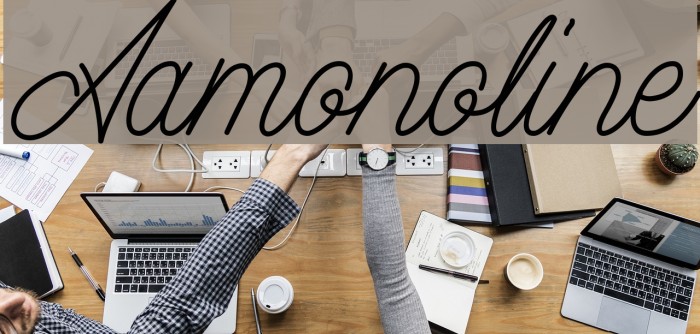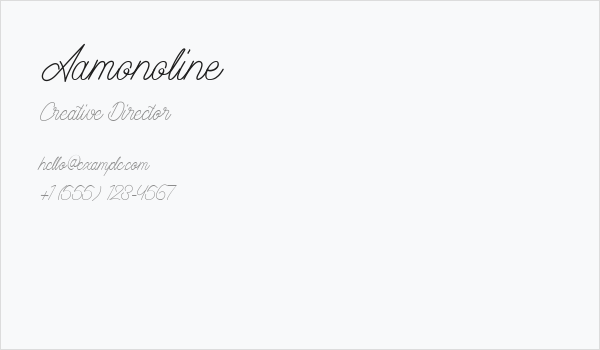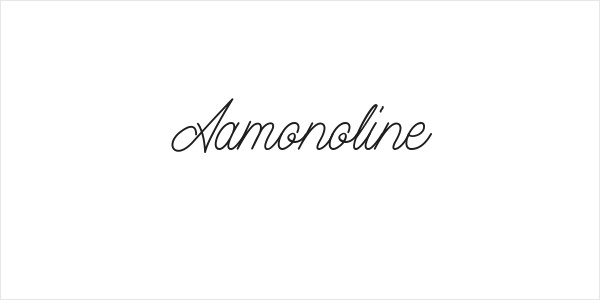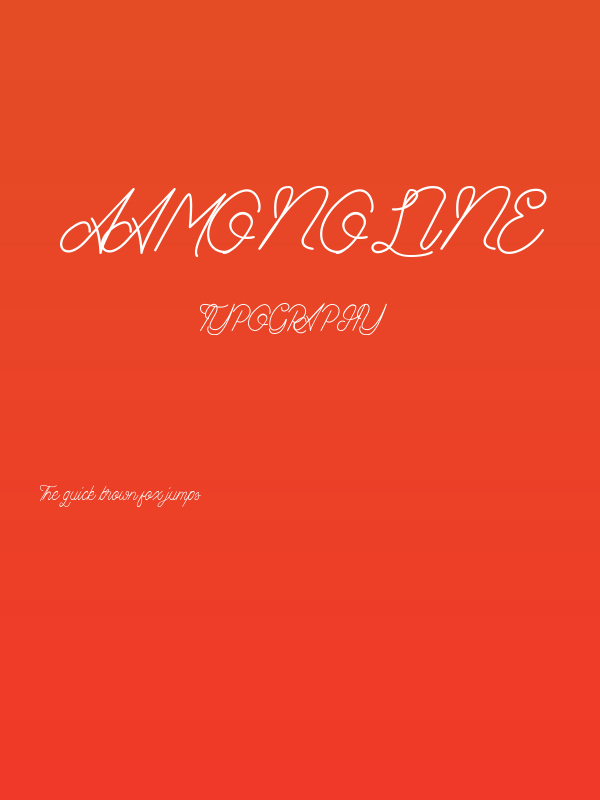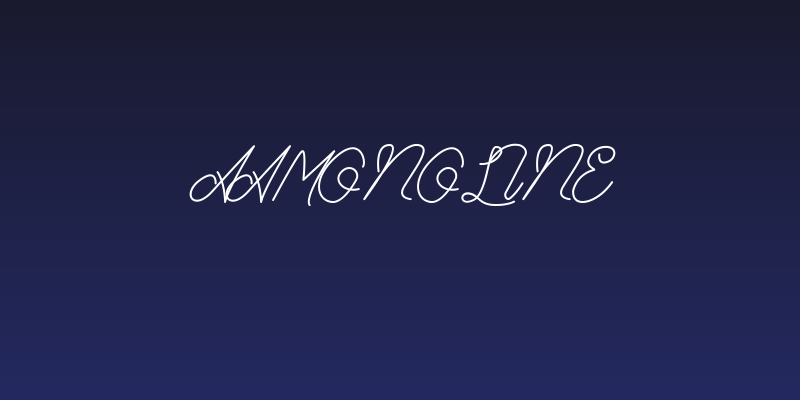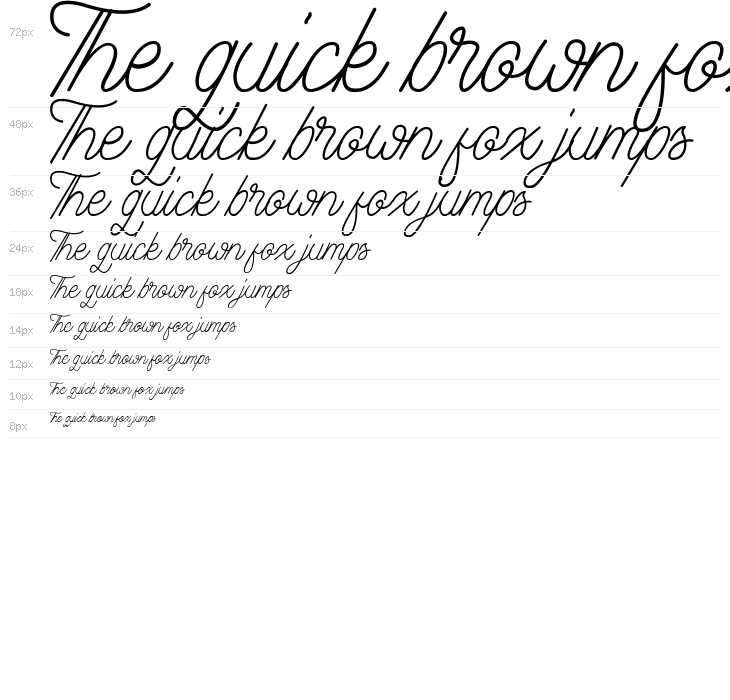
Aamonoline Font
Aamonoline Description
This elegant script font features a flowing, cursive style with smooth, continuous lines that create a sense of fluidity and grace. The uppercase letters are slightly more ornate, with subtle flourishes that add a touch of sophistication. The lowercase letters maintain a consistent height, contributing to a harmonious appearance. The numerals are clear and legible, matching the overall aesthetic of the alphabet. Special characters are thoughtfully designed to blend seamlessly with the rest of the font. This font's delicate strokes and refined curves make it ideal for projects that require a personal, handwritten touch.
| Use Case | Logos, Invitations, Personal Correspondence |
| Proposed Projects | Ideal for wedding invitations, greeting cards, elegant branding, and personal stationery. |